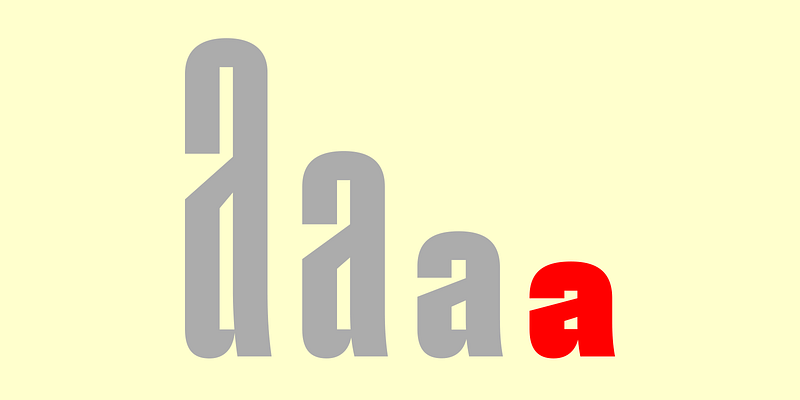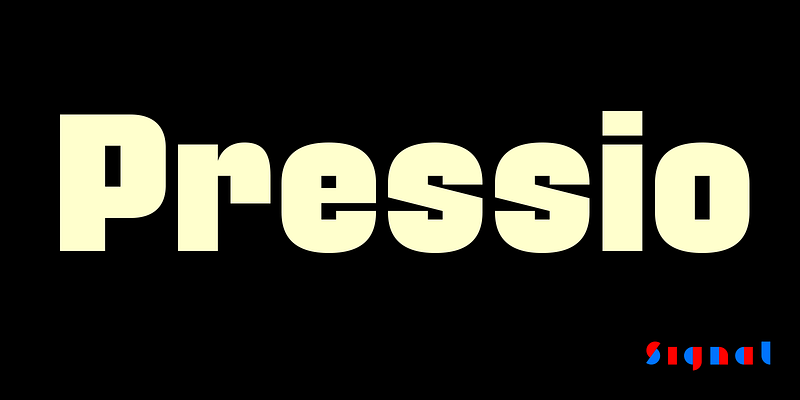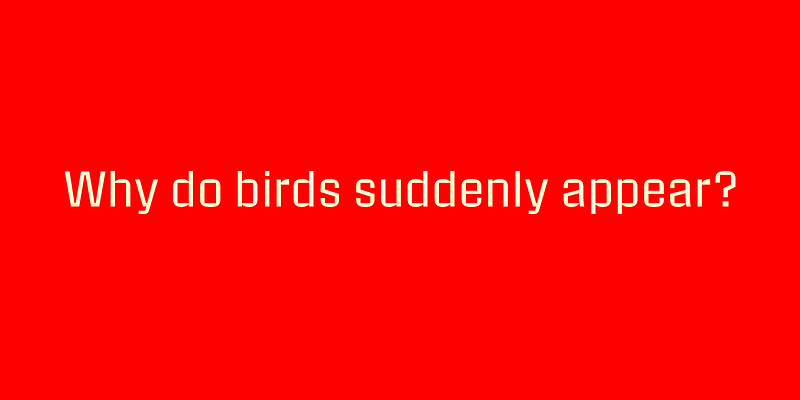
The Pressio type system is a study in doing things backwards. First, we began with the weight that’s usually drawn last: the ultra-compressed black. This was squashed down vertically in increments to make the compressed, condensed, and regular widths, then hollowed like a dugout canoe to produce the lighter weights. 20 styles in five weights and four widths provide a broad range of expression. Includes full-width, condensed, compressed, and extra-compressed versions.